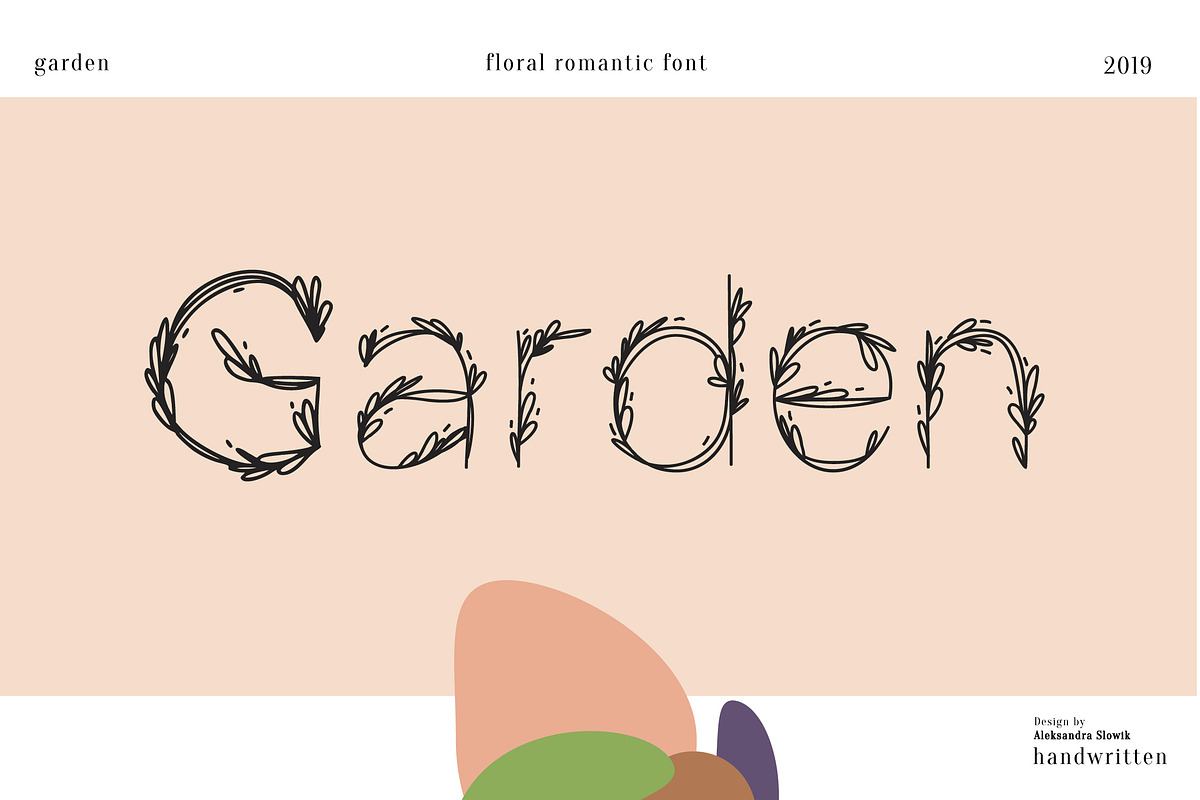
Garden|floral romantic font Free Download
Garden | Floral Romantic Font Free Download
Garden | Floral Romantic Font Free Download is an elegant and whimsical script typeface that evokes the beauty and delicacy of nature. With its graceful curves, floral-inspired details, and romantic charm, this font is perfect for wedding invitations, floral branding, greeting cards, and anything that requires a touch of elegance and softness.
The font’s intricate design, complete with decorative flourishes, gives it a vintage, handcrafted feel that’s perfect for projects aiming to convey love, warmth, and beauty. Whether you're creating for a special event, a boutique, or an art project, Garden adds a refined, nature-inspired aesthetic to your work.